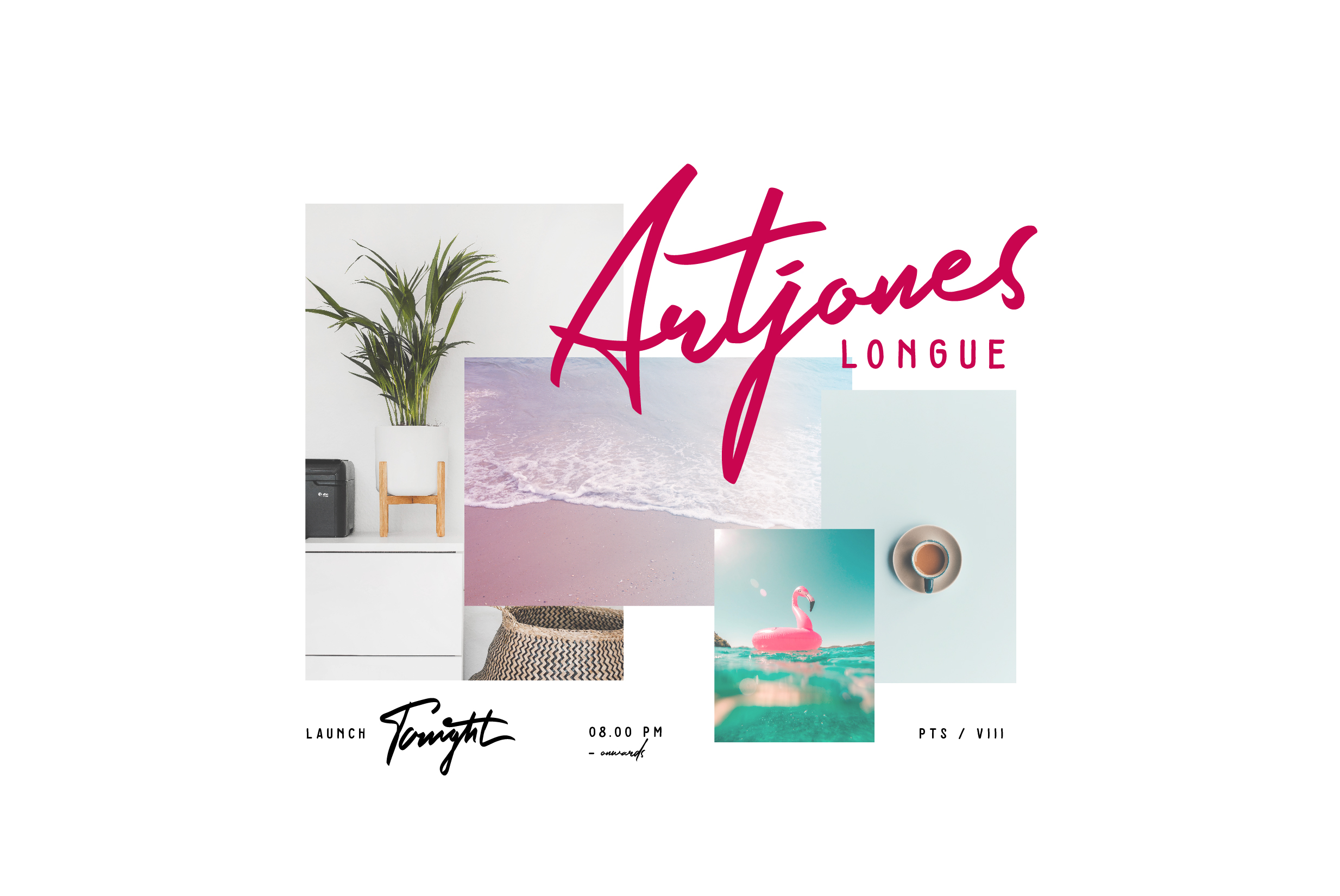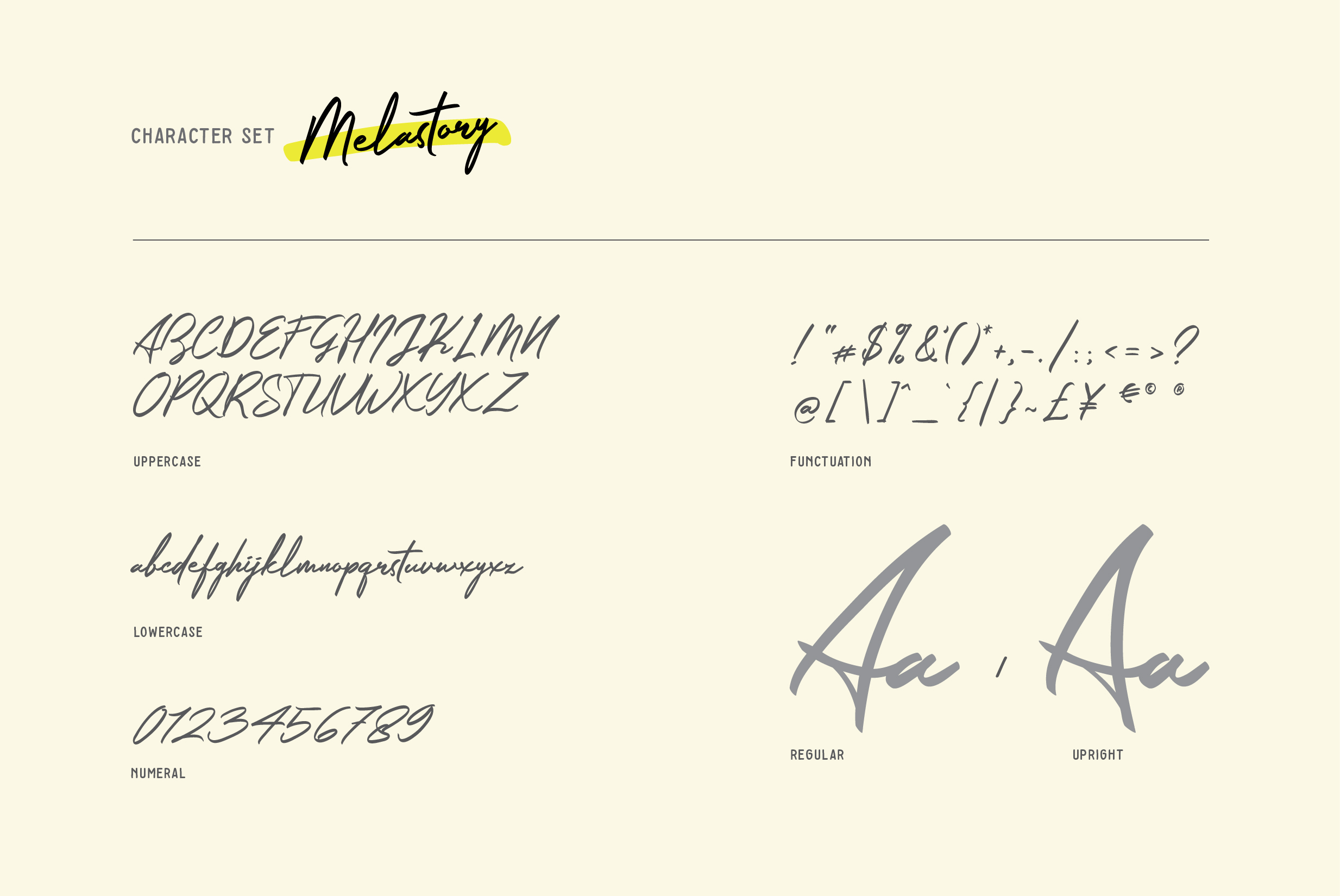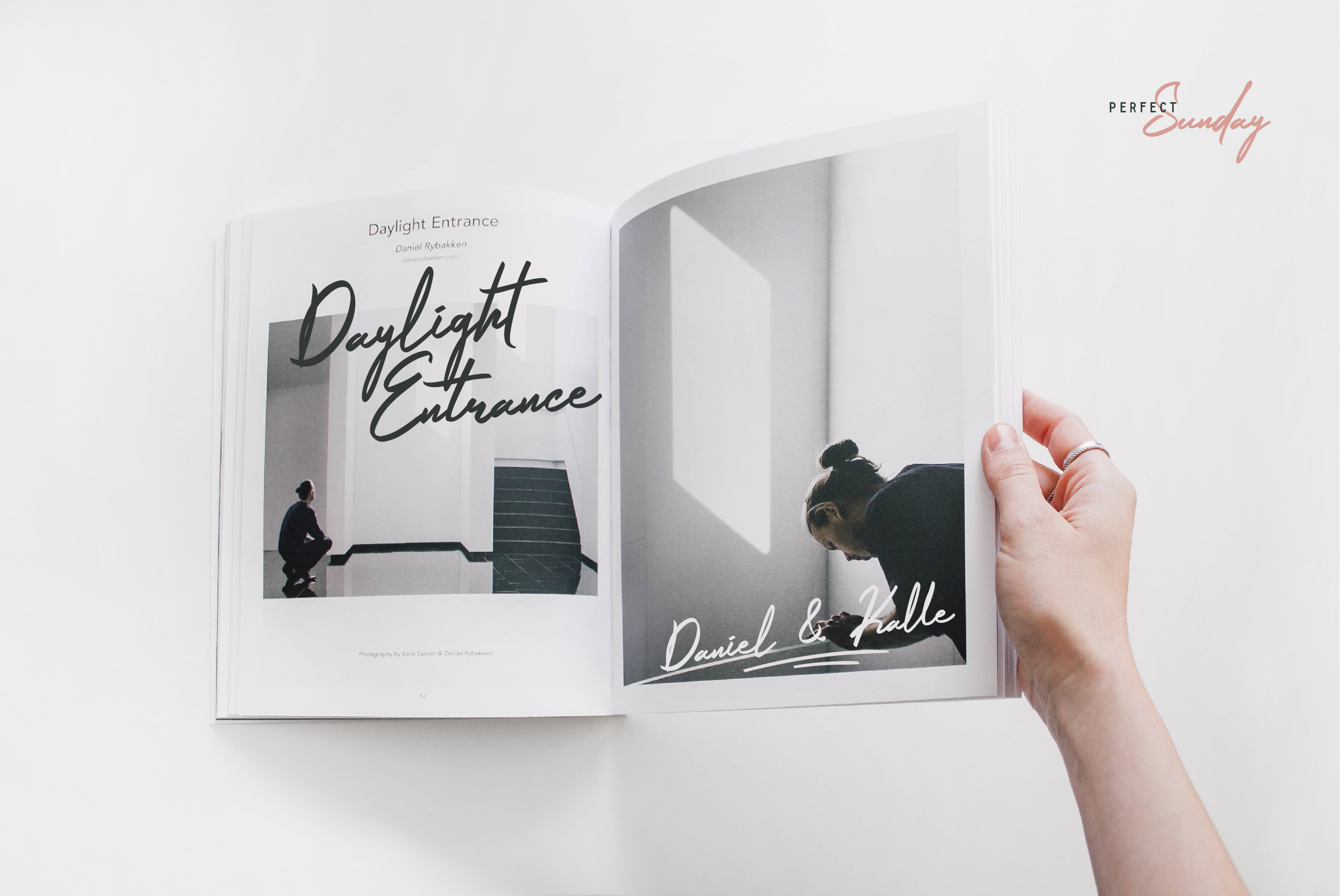
Introduction to Melastory Script Font
Have you ever found yourself lost in a sea of blank pages, struggling to bring your creative project to life? We’ve all been there – staring at a blank canvas, searching for the perfect font to set the tone for our design. For those moments of uncertainty, we’re excited to introduce the Melastory Script Font, a modern signature font that’s sure to add a touch of sophistication and elegance to any project.
With its perfect blend of feminine and masculine styles, the Melastory Script Font is an invaluable design resource for any creative professional. Whether you’re working on a high-quality branding project or a carefree social media graphic, this font is sure to bring a sense of style and sophistication to your design.
Key Features of Melastory Script Font
- High-quality, elegant script font perfect for creative projects and designs
- Features a beautiful, flowing script style with subtle variations in letterforms, adding a touch of sophistication to any design
- Designed to be highly legible, even at small font sizes, making it ideal for a wide range of applications, from invitations to signage
Honest Review: Melastory Script Font
I recently stumbled upon the Melastory Script Font and I must say, it’s a fantastic addition to any design resource. This high quality font is perfect for creative projects that require a touch of elegance and sophistication.
What works well: ✨ The Melastory Script Font has a beautiful, handwritten feel that’s perfect for invitations, wedding designs, and other special occasion projects. The font is highly customizable, allowing you to adjust the spacing and size to suit your design needs. The free download is a bonus, making it an excellent choice for designers on a budget.
What doesn’t work well: ⚠️ The font is not suitable for small text sizes, as the letters can become difficult to read. Additionally, the transparent background option can sometimes cause issues with design layouts.
Overall impression: I’m impressed with the Melastory Script Font’s versatility and high quality. While it has some limitations, it’s an excellent choice for designers looking for a unique and elegant font for their creative projects. With a little experimentation and patience, you can achieve stunning results with this design resource.
- Perfect for creative projects, invitations, and wedding designs
- Highly customizable
- Not suitable for small text sizes
- Transparent background option can cause issues with design layouts
Tips for Getting the Most Out of Melastory Script Font
When using the Melastory Script Font, remember to experiment with different font sizes, colors, and styles to get the best results. You can also combine the font with other design elements to create a unique look.
The Melastory Script Font is ideal for creative projects, such as wedding invitations, birthday cards, and social media graphics. Its transparent background feature makes it perfect for designing with a high-quality, design resource like this font.